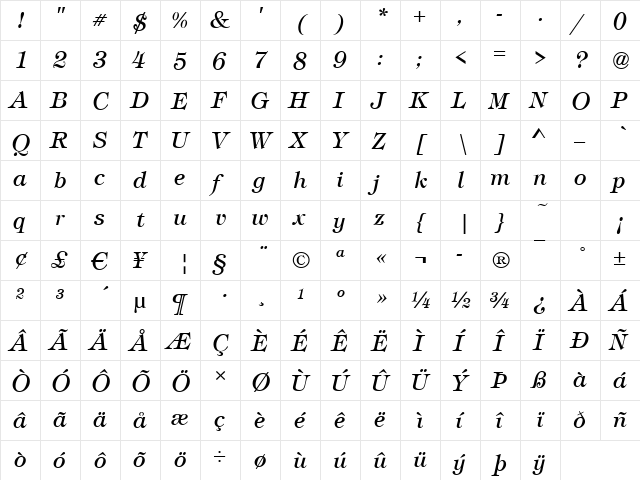
Timber Italic Font Preview
Timber Italic
Design Context for Timber Typeface
Timber is a composed and adaptable typeface that performs quietly and consistently across a wide range of design contexts. The slanted form adds forward momentum and visual energy.
Pro Tip: Use Timber for emphasis, pull quotes, and subheadings where its slanted energy can add rhythm to the layout.